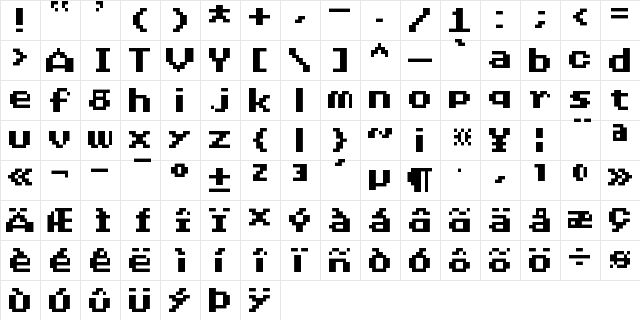
Nineteen Eighty Seven Regular
| Designer | GameDevDan |
Design Context for Nineteen Eighty Seven Typeface
Nineteen Eighty Seven is a composed and adaptable typeface that performs quietly and consistently across a wide range of design contexts.